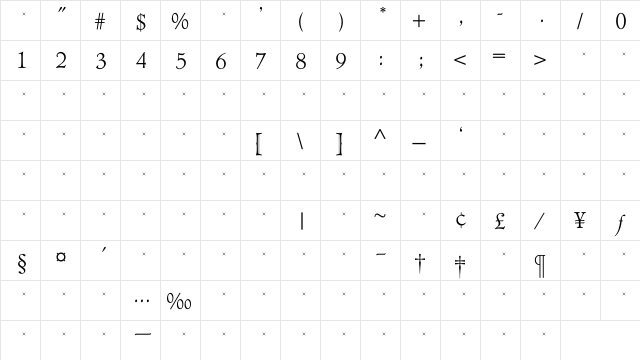
TCAdministerLightTab Regular Font Preview
TCAdministerLightTab Regular
Design Context for TCAdministerLightTab Typeface
TCAdministerLightTab takes a measured approach to typography — its balanced proportions and neutral character make it a reliable workhorse for both digital and print work. The delicate stroke weight brings airiness and refinement to layouts.